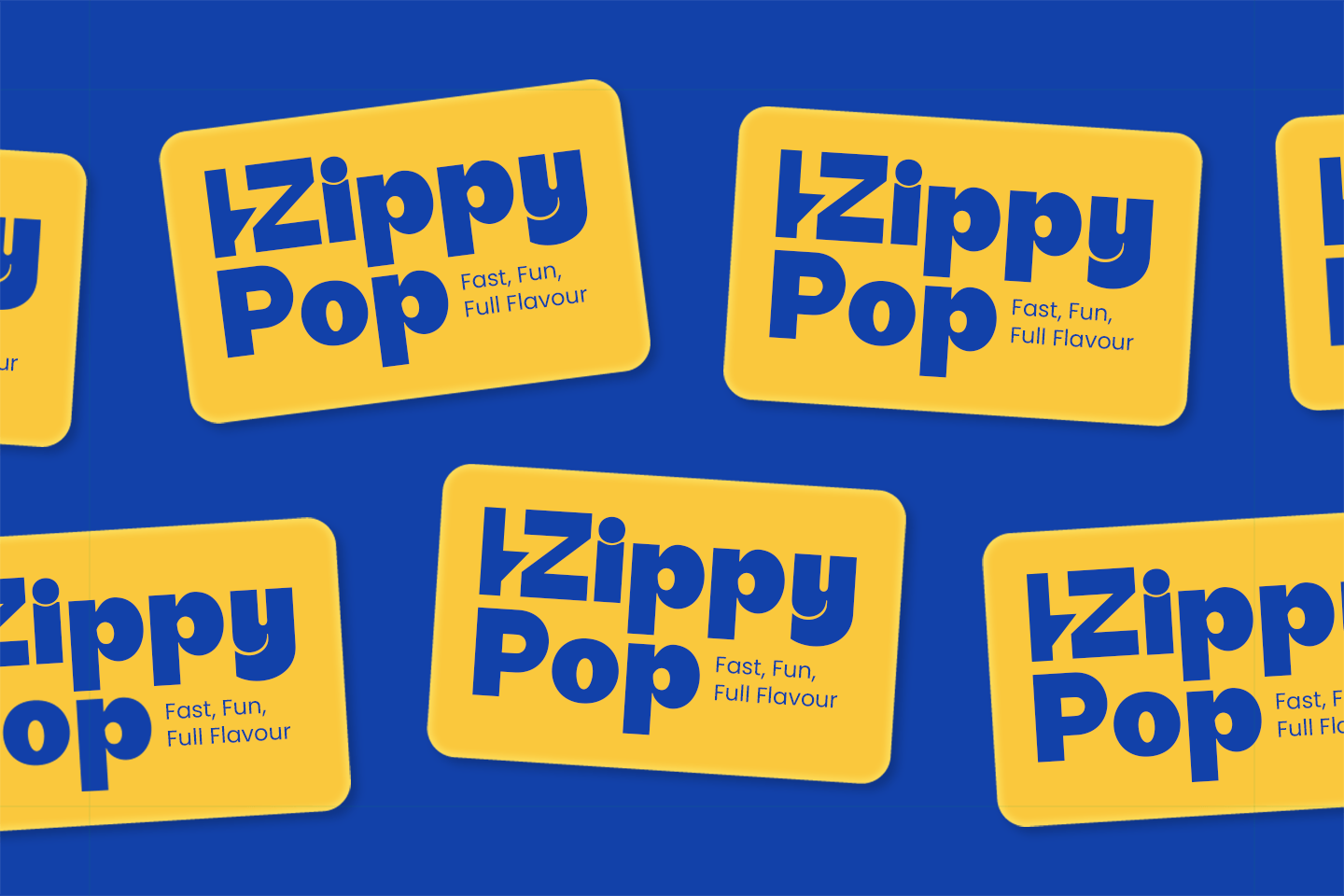
The best font for labels plays a crucial role in how a product is perceived, whether it feels premium, approachable, or trustworthy. In this article, we’ll explore 20 of the best typefaces that are not only eye-catching but also help strengthen brand identity and professionalism.
Each font is described by its look and best use, giving designers, business owners, and brand strategists clear options to make their labels stand out.
Bursting with personality and energy, it turns every word into a highlight. Its bold strokes, playful angles, and retro-inspired style keep it eye-catching while remaining highly readable at any size.
Looking for a font that feels warm and approachable? Rayton Brink delivers just that with its smooth, rounded curves and playful charm for coffee or ice cream labels, adding a joyful and creative touch.
Qufina combines modern simplicity with just the right amount of energy. Its sleek design makes it perfect for cosmetics, furniture, or any label that calls for a professional yet approachable vibe.
With its flowing swashes, handcrafted feel, and expressive ligatures, it’s one of the best fonts for labels, perfect for wine labels or bake houses that deserve a custom-made touch.
Fun and full of character, Mayluna Font is a bold script that combines retro style with modern playfulness. Its smooth curves and flowing ligatures add warmth and personality, perfect for designers who need a friendly look.
Bringing 90s retro vibes into today’s design, this font mixes bold character with sharp serif touches. The result is a look that feels both nostalgic and fresh, making it a great fit for clothing and pastry labels.
Balney Font blends playfulness with sophistication, adding a sunny touch to any project. From fresh drink labels to café branding or lifestyle designs, it captures that balance of casual charm and professional appeal.
Laqula is a script font with a retro soul and modern readability. As the best font for name labels, it brings a unique character without losing clarity, making it a great choice for fashion labels or any design that needs a personal touch.
Marige is a bold typeface that balances classic elegance with contemporary flair. Strong, eye-catching, and versatile, it’s a fun choice for kids’ book labels with a confident design.
Think retro charm meets modern design, and that’s what this serif font delivers. With rounded serifs, it creates a nostalgic yet fresh look. Ideal for organic labels that need warmth and authenticity.
Malrin is a bold retro font with roots in the iconic fatface typefaces. Its funky, groovy style carries a hint of psychedelic flair, making it the best font for labels for photo studio or skincare products with vintage and nostalgic charm.
With Megren, clean sans serif meets graceful copperplate script. The result is a font that feels both stylishly modern and charmingly nostalgic. Ideal for bodycare packaging, book labels, or wedding branding that needs a fashionable touch.
Rollions is an all-caps serif typeface with soft, rounded serifs that give it a refined yet approachable look. With its stylistic options and ligatures, it brings extra charm to labels, especially for jewelry or classic book designs
Stylish and versatile, Verilet combines elegant design with semi-vintage flair. This makes it a great choice for plant labels, or even the best font for address labels when sophistication meets a nostalgic touch.
Bold, clear, and versatile, Trinstam is a modern-classic serif that works beautifully at any size. Use it for clothing labels or add it as a chic text overlay to elevate your visuals
Manteman combines the charm of vintage lettering with a clean modern style. Whether for shirt tags, apparel labels, or photography projects, it delivers an aesthetic look that feels both classic and fresh.
Galvitra’s distinctive shapes and subtle serifs give designs extra depth and character. Strong yet stylish, it’s a versatile choice for projects that need to make a bold statement, perfect for book labels and more.
Playful and bold, Bilgres blends hippie spirit with rounded curves for a fun and approachable look. It’s a clear answer to what is the best font for labels, especially for food packaging like pizza or noodle containers that spread energy and charm.
Bluselle is a sweet, whimsical script that blends handwritten elegance with a playful touch. Its smooth curves and natural flow make it perfect for romantic, stylish designs, like perfume labels that need a heartfelt charm.
More than just a font, Malinton adds energy and character to your designs. Its playful yet professional style makes it versatile enough for notebooks, streetwear labels, or any project with charm and function.
Choosing the best font for labels is more than just a design choice; it’s about shaping how customers perceive your brand. From playful scripts to bold serifs and retro-inspired styles, the fonts we’ve covered offer plenty of options to match different label design needs.If you’re ready to take your projects to the next level, explore more unique and professional fonts directly at Zarmatype. With their wide collection, you’ll easily find the perfect typeface to bring your labels and your brand to life. Browse now and make your labels unforgettable!